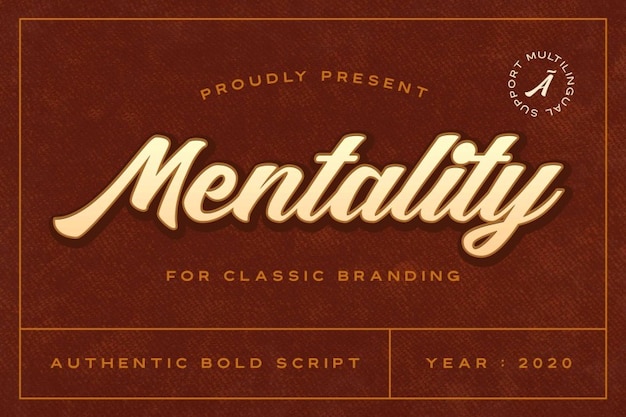
Mentality is a classic font tailored for you to add an authentic feel to your projects. Its design and colors are made to enrich templates, presentations and backgrounds. Download it now!
Mentality (400)